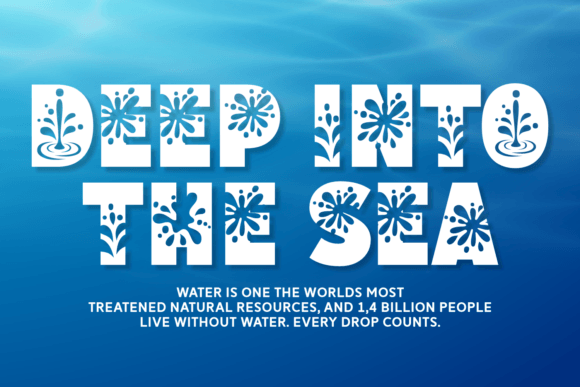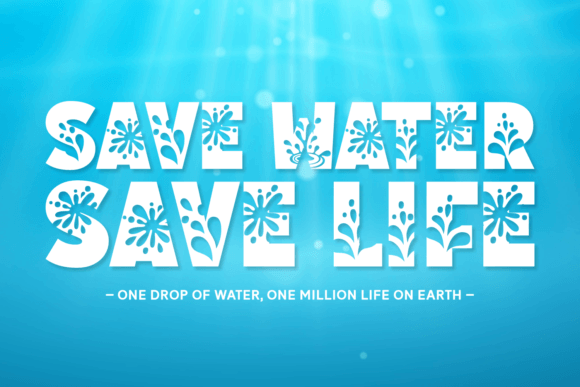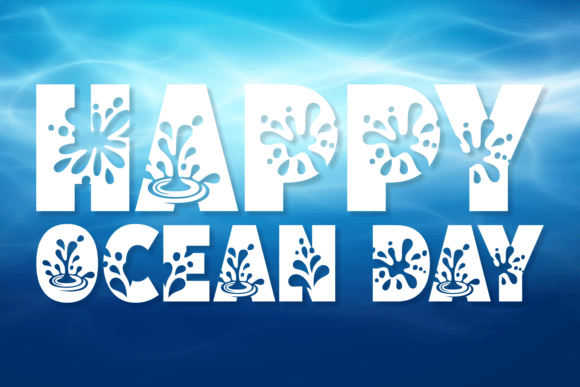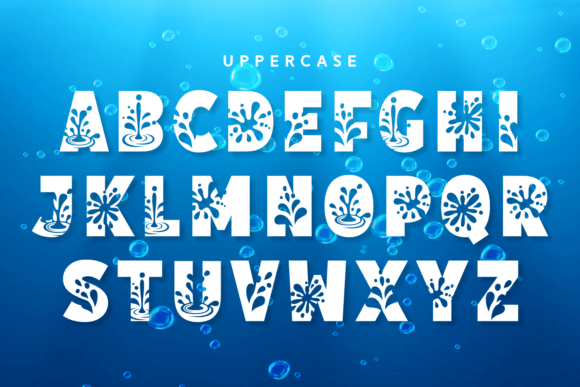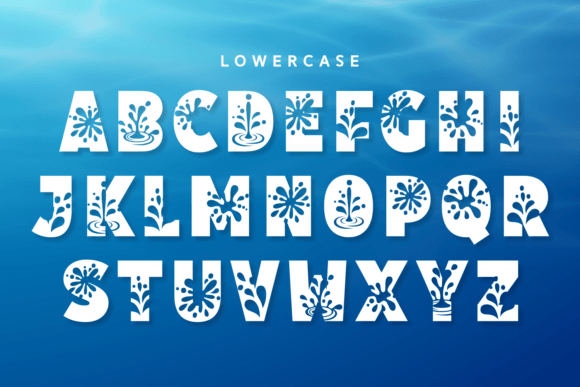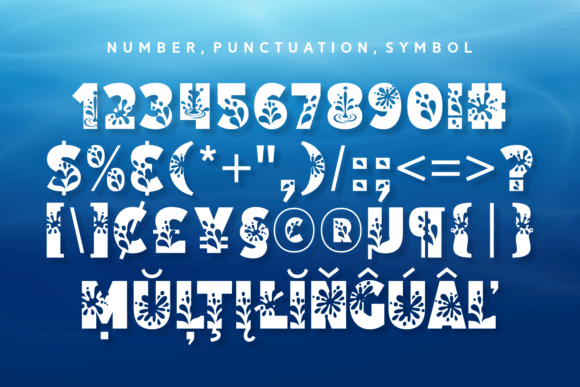
The Joy of Water Font: A Designer’s New Best Friend
I’ll never forget the time I was working on a branding project for a trendy new cafe, and I just couldn’t find the right font to capture their playful vibe. The client wanted something that would appeal to a young audience, but still convey a sense of sophistication. I spent hours scrolling through font libraries, but nothing seemed quite right. That was until I stumbled upon About Water – a cute and playful decorative font that instantly won me over. ✨
An Honest Review of About Water
So, what makes About Water so special? Let’s dive in and take a closer look.
• ✨ Its playful, hand-drawn feel makes it perfect for creative projects
• ✅ It’s incredibly versatile – use it for blog posts, logos, branding, ads, invitations, and more
• 💫 The font comes with a range of OpenType features, including glyphs and stylistic alternates
• 👍 It’s surprisingly legible, even at smaller sizes
While About Water is an amazing font, it’s not without its quirks. Here are a few things to keep in mind:
• 🤔 It may not be the best choice for body text – it’s really designed to shine as a headline or display font
• ⚠️ Some of the more intricate glyphs can get a bit lost at very small sizes
A Practical Guide to Using About Water
The Story Behind About Water
About Water was designed by a talented font designer who wanted to create a font that would bring a sense of joy and playfulness to creative projects. The designer drew inspiration from the natural world, combining organic shapes with a modern, digital aesthetic. The result is a font that’s both whimsical and versatile – perfect for adding a touch of personality to your designs.
Q: What kind of projects is About Water best suited for?
A: About Water is a versatile font that can be used for a wide range of projects, including blog posts, logos, branding, ads, invitations, greeting cards, planners, photo albums, and more.
Q: Is About Water available in different languages?
A: About Water currently supports the English language, but some versions may include additional language support.